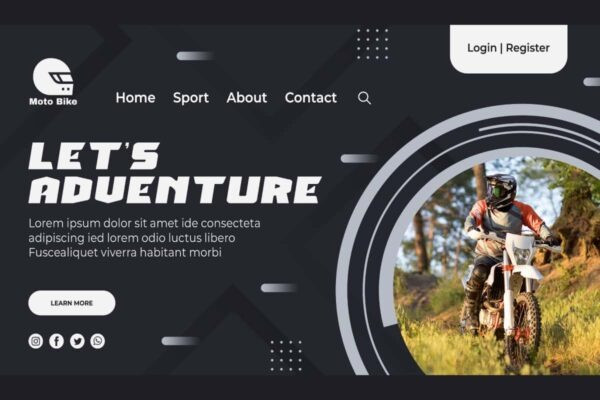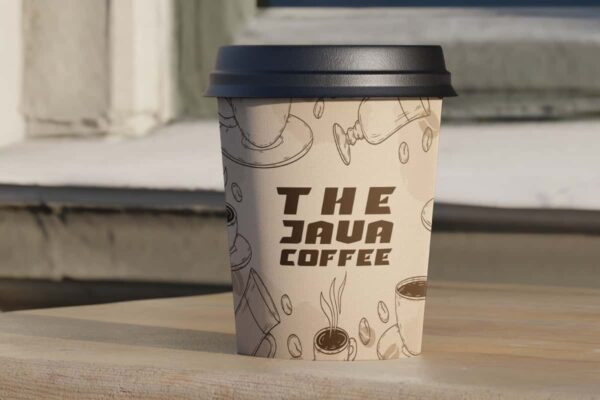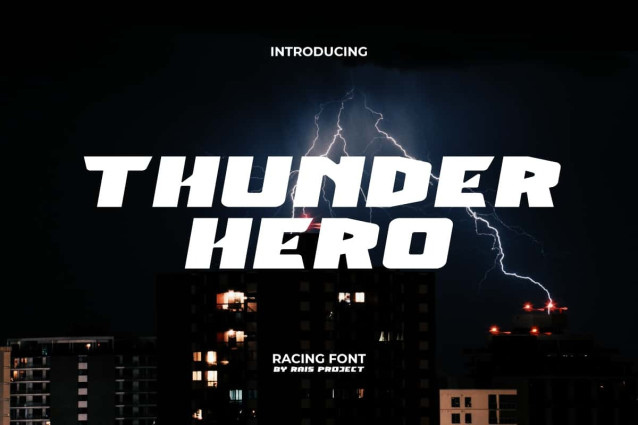
Thunder Hero Font
Thunder Hero Font is a uniquely eye catchy sharp edges modern display font with a bold and cool concept to make your design looks standout! One of a racing font by RaisProject. This font has sharp and dominant characters that are suitable for sports or racing themes. It will be great for custom design, poster, label, signage, stationery, product packaging, quotes, brand image, advertisement, invitation, marketing material, website page, and more!
Thunder Hero Font includes a full set of ALL CAPS for Uppercase and Lowercase Letters, Numerals, and large range of Punctuation. This cool font will be suitable for various industries, such as sports, automotive, fashion, game, barber shop, cafe, event or festival, photography, printing, publishing, etc.